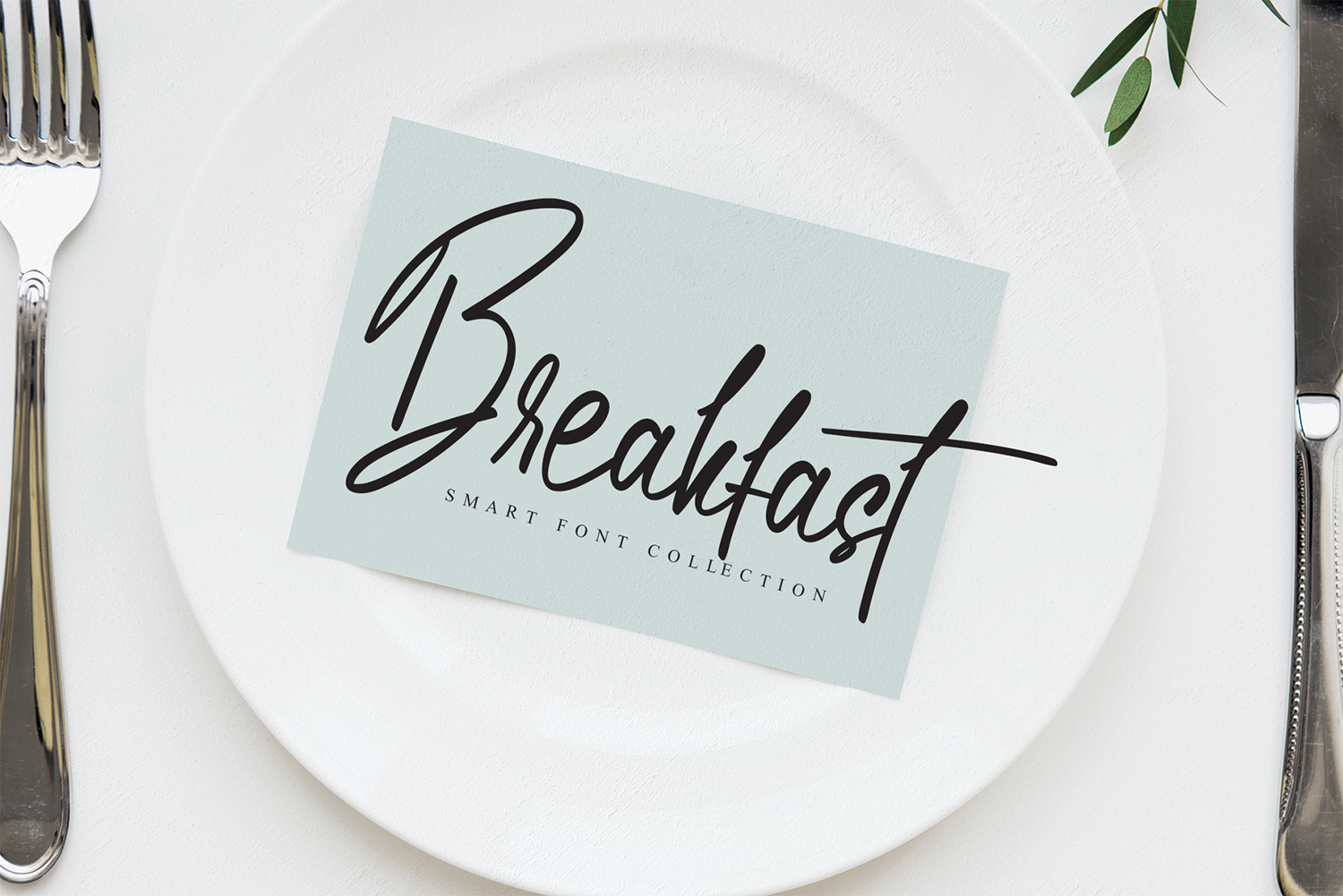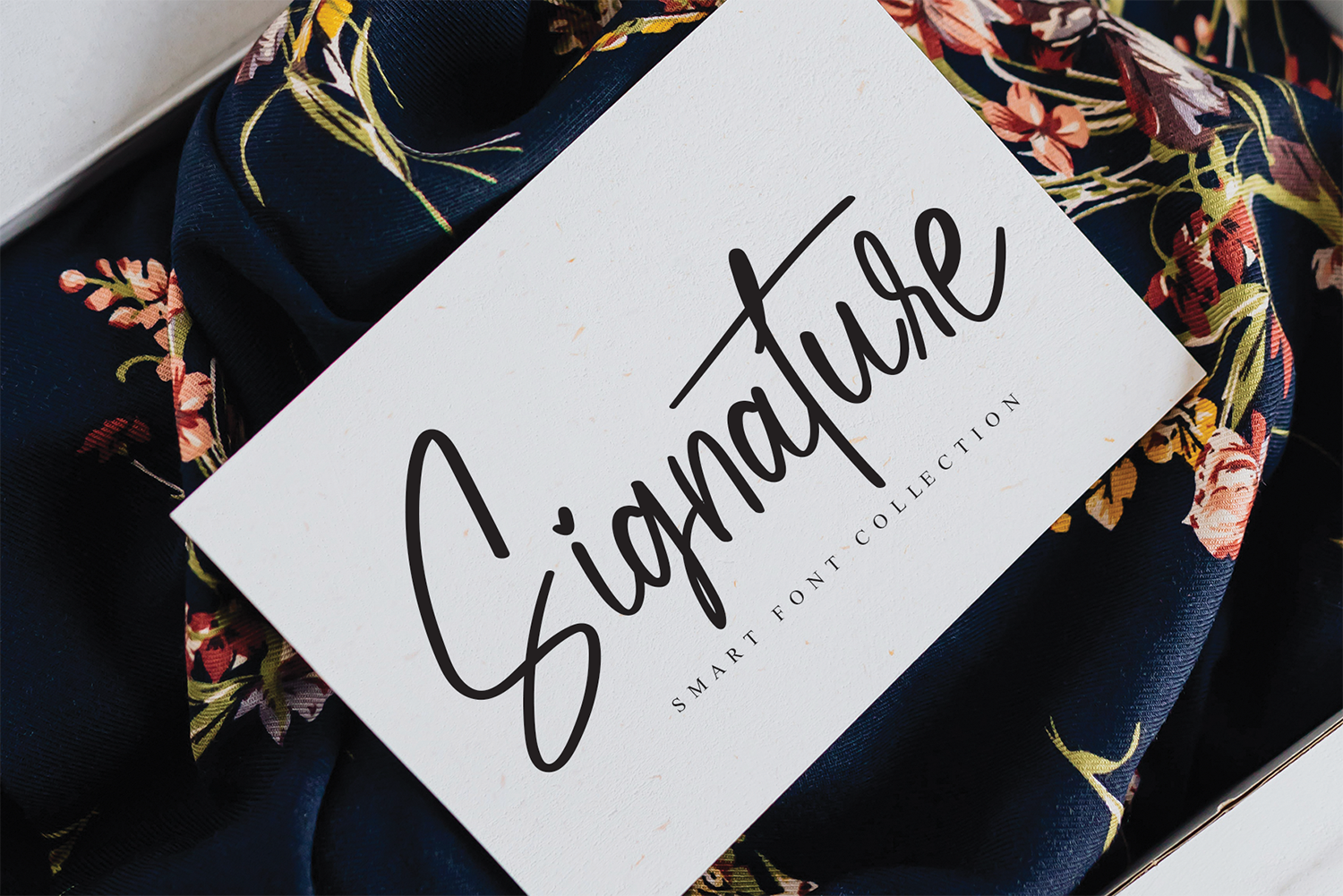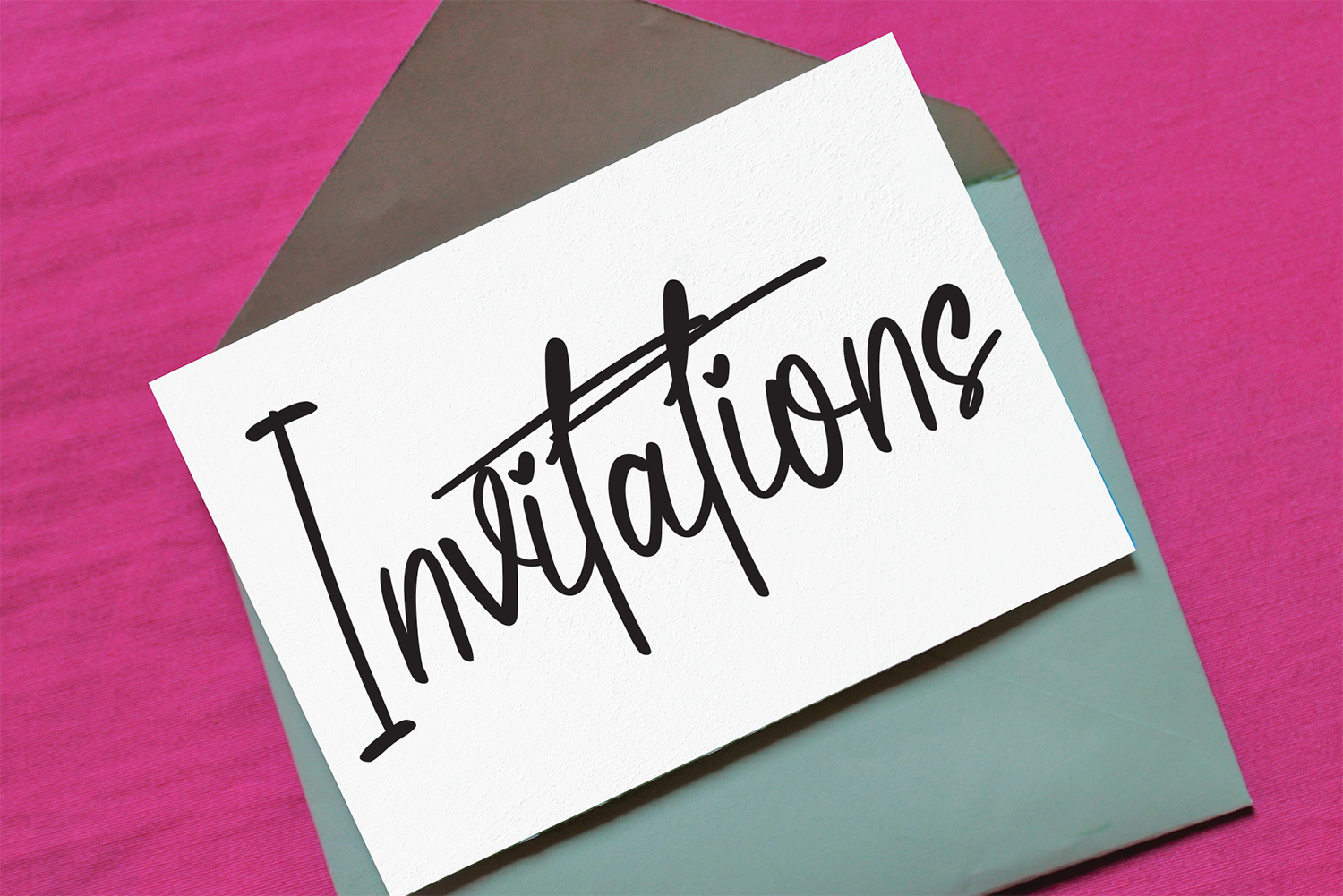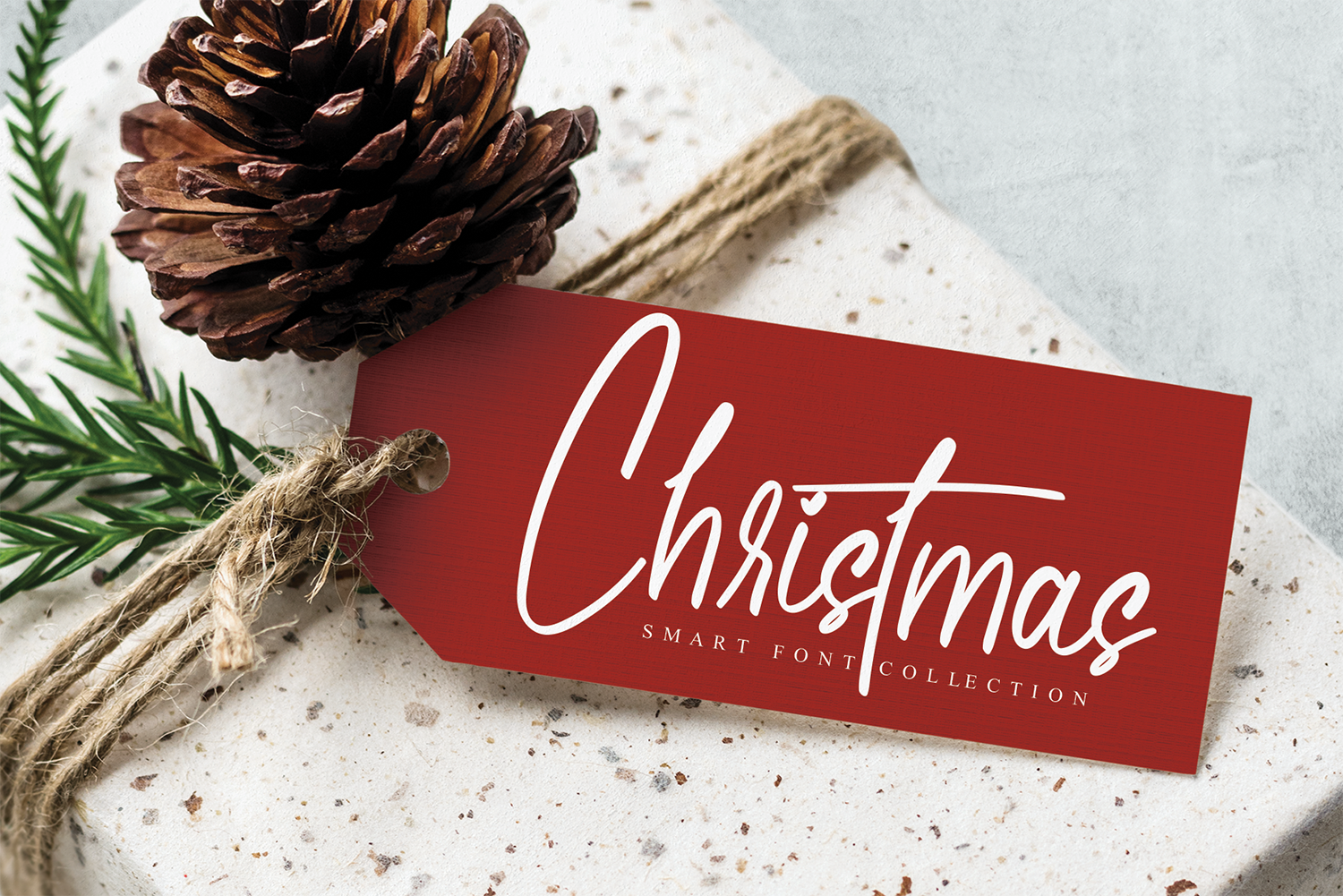
Bittersweet Free Font
Introducing Bittersweet Free Font, a captivating and enduring handwritten font. Perfectly suited for crafting attention-grabbing logos, establishing compelling branding, and accentuating memorable quotes. Infused with individuality, each letter boasts a distinctive and exquisite flair, breathing life into your design endeavors. This free typeface was designed by a talented Scratchones Creative. If you like it don’t forget to check out the full version.